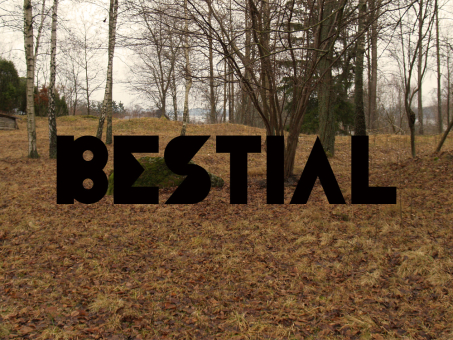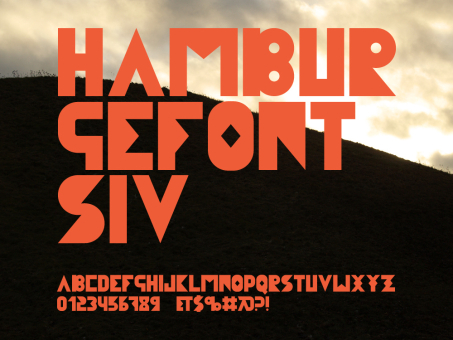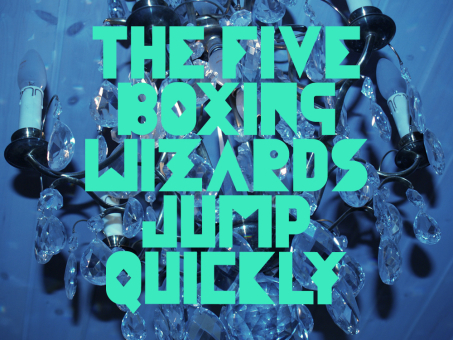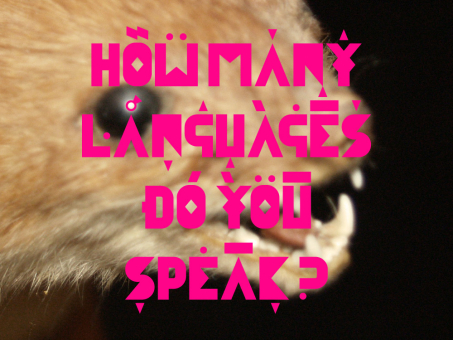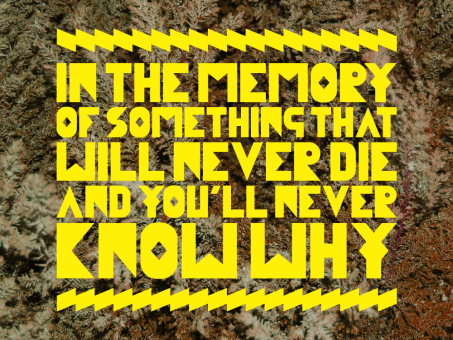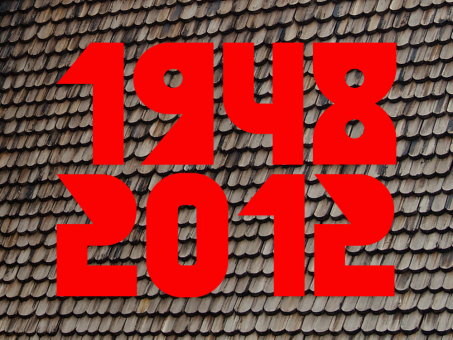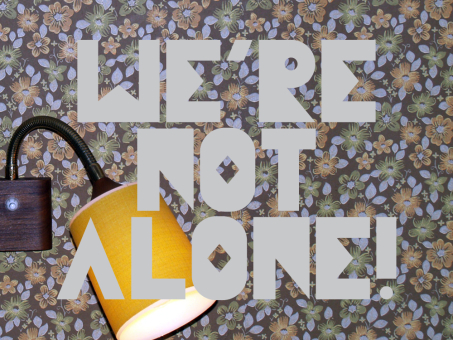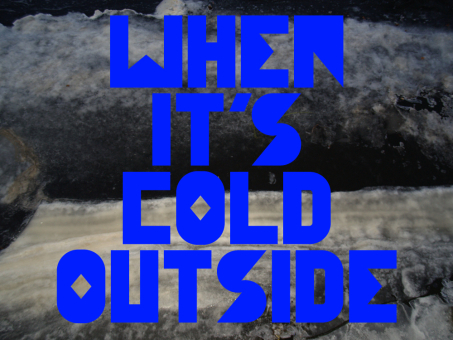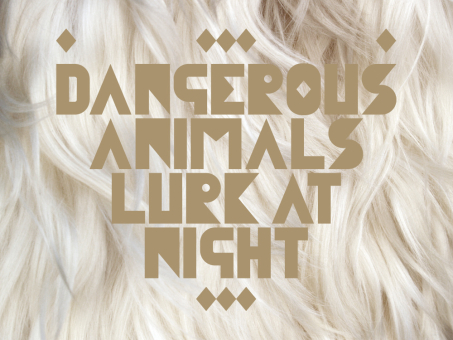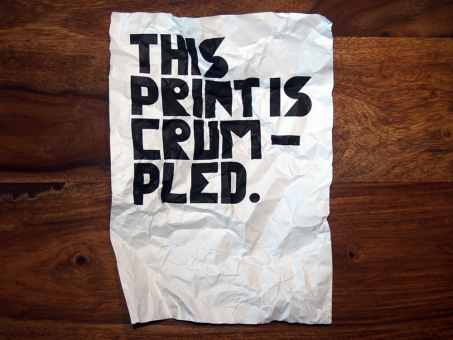
Bestial
Bestial is a strong, clean, all-caps ornamental typeface outlined by simple primitive shapes. It is best suited for massive headlines, fashion editorials, album covers, logo design or any other experimental project. The complete character set has 380 glyphs.